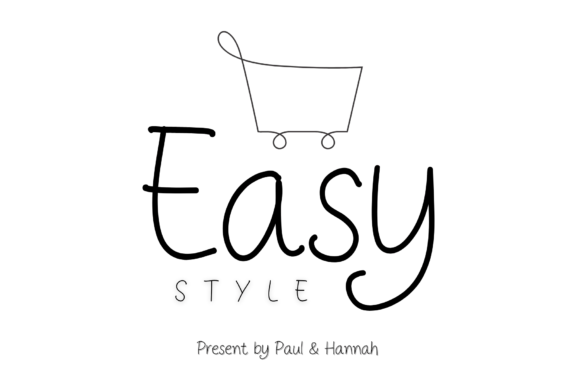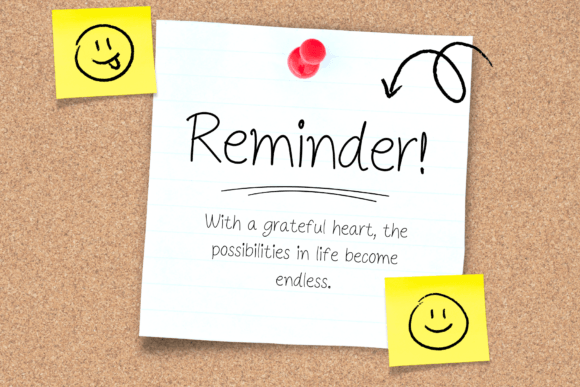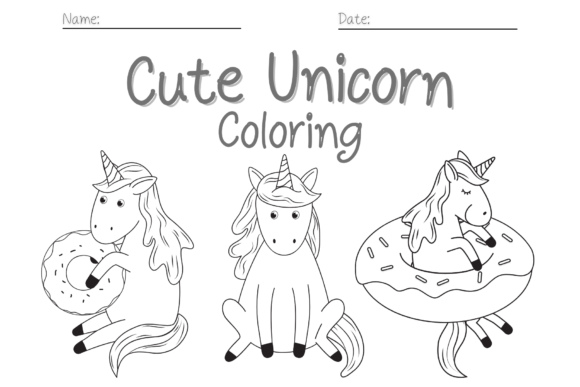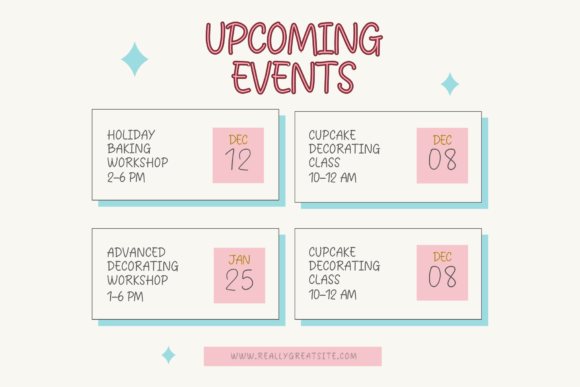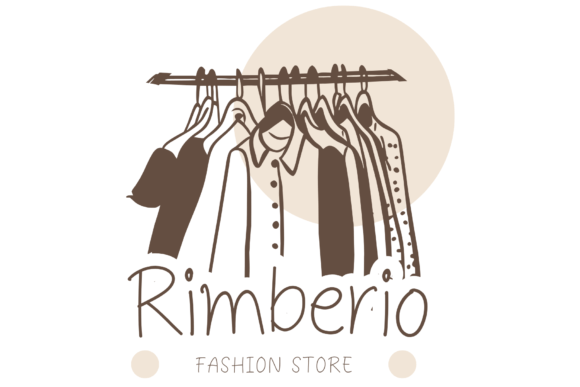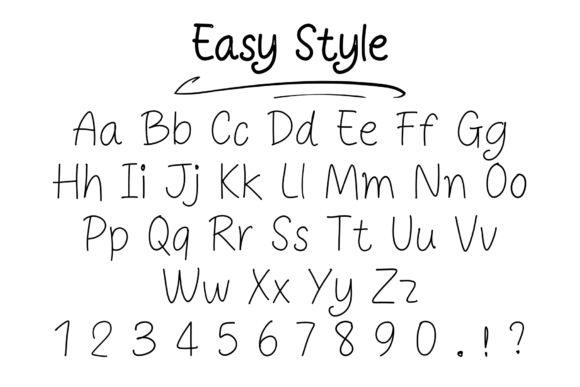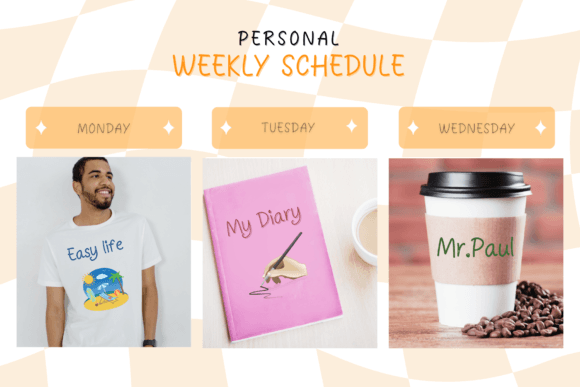
Unlock Your Creativity with Easy Style Font
You know that moment when you’re brainstorming ideas for a new project, and suddenly, the perfect font pops into your head? For designers, that “aha” moment is a beautiful thing. It’s the spark that sets off a chain reaction of creativity, and we’re excited to share one such spark with you – the Easy Style Font.
This sweet and friendly handwritten font is a game-changer for designers looking to add a personal touch to their work. With its natural and unique style, the Easy Style Font is incredibly versatile, making it a valuable addition to any design toolkit. Whether you’re working on a logo, brochure, or social media graphics, the Easy Style Font is sure to bring a smile to your audience’s face.
Easy Style Font Key Features
- Unique Characteristics: Features a clean, minimalist design with a subtle rounded edge, making it perfect for body text, headings, and titles.
- Font Weight: Available in 7 weights, from Light to Black, allowing designers to add depth and emphasis to their text.
Easy Style Font Review
Overall, I’m impressed with the Easy Style Font, but it’s not without its quirks. Let’s dive in and see what it’s got to offer.
- Legibility: This font is extremely easy on the eyes, even at smaller font sizes.
- Flexibility: It works well for both body text and headings, making it a versatile choice.
- Streamlined aesthetic: The clean design gives a modern feel to any text.
- Character count: The font can look a bit bland when used for large blocks of text.
- Limited expressiveness: While it’s great for clean text, it may not be the best choice for more creative or emotive writing.
While the Easy Style Font isn’t perfect, its strengths make it a solid choice for many applications. It’s a great option for websites, documents, or any other situation where you need a clean, easy-to-read font. With a bit of creativity, you can work around its limitations and create beautiful, effective designs.
Practical Application Guide: Easy Style Font
For best results, pair Easy Style Font with a clean and minimalist design aesthetic.
– Digital invitations and greeting cards
– Social media graphics and ads
– Minimalist logos and branding
– Editorial and publishing design